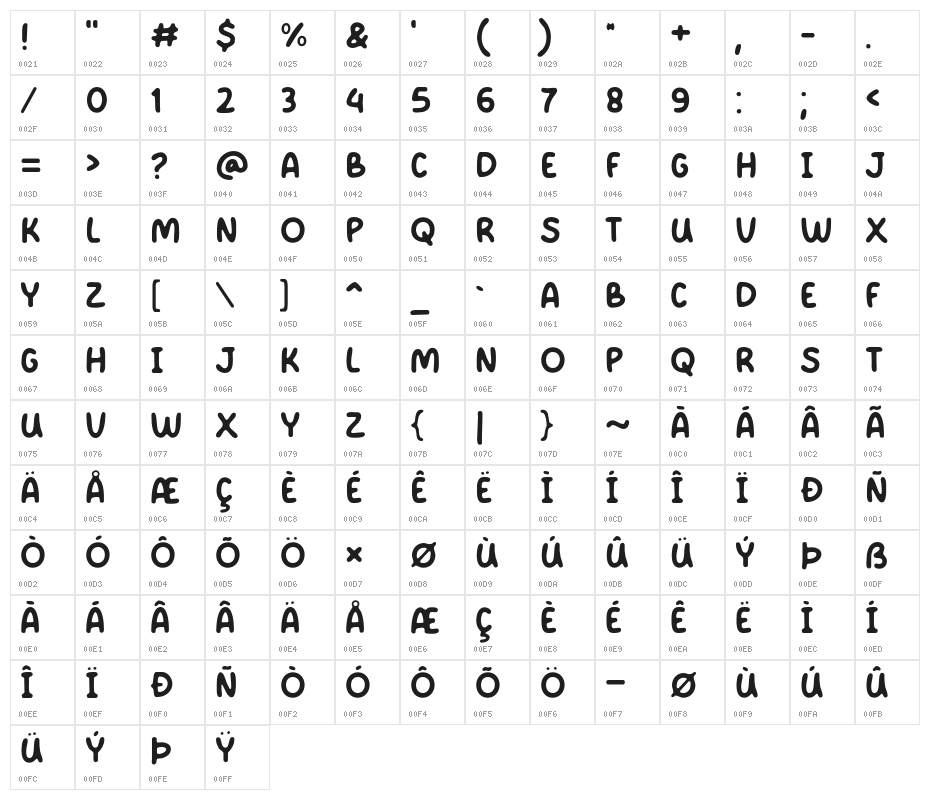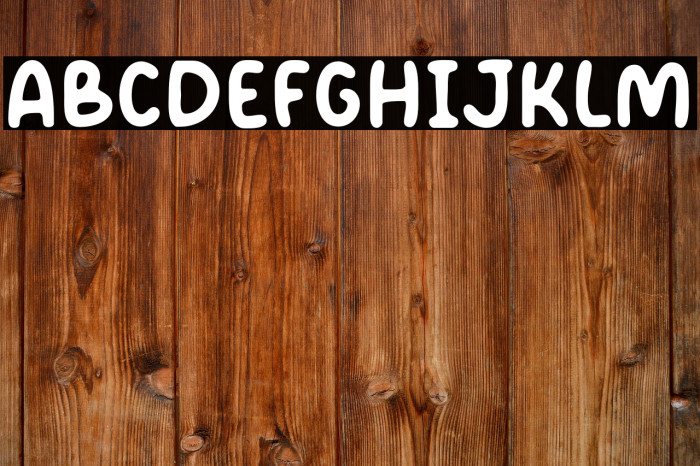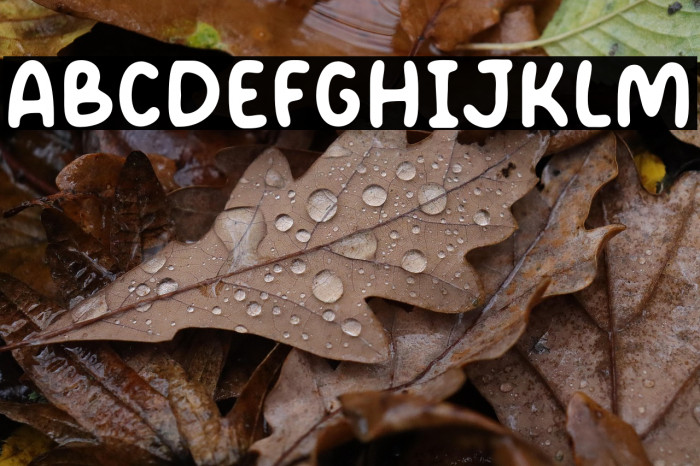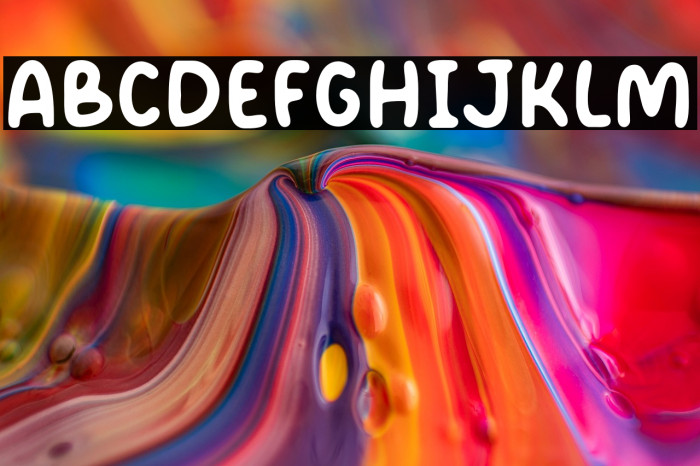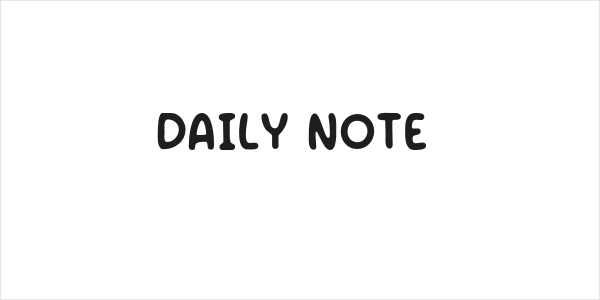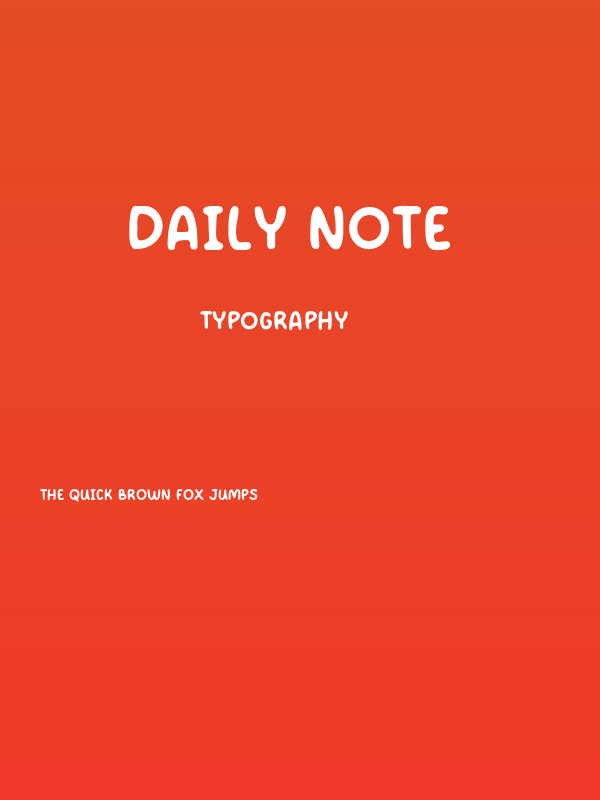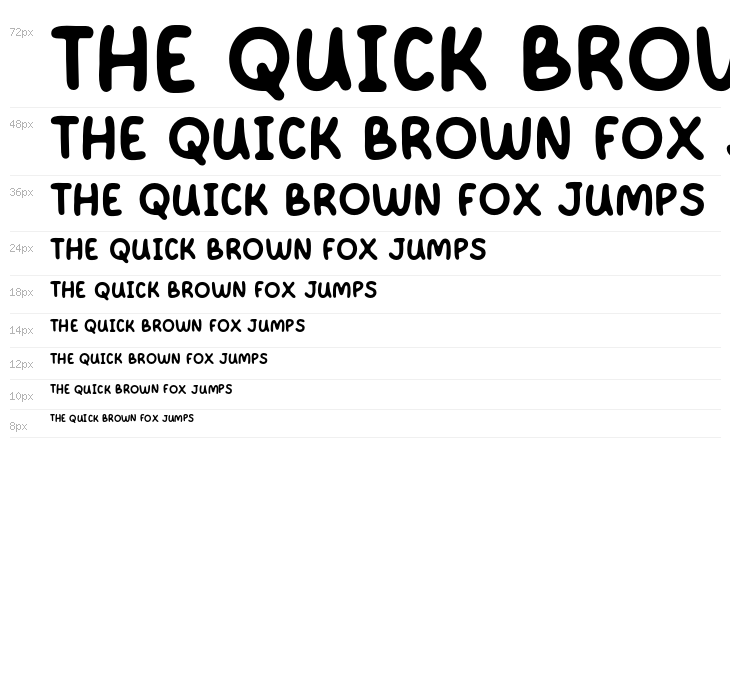
Daily Note Font
| Общий стиль | Playful |
| Область применения | Headlines, Logos, Casual Text |
| Рекомендуемые проекты | Ideal for children's books, greeting cards, playful branding, and casual invitations. |